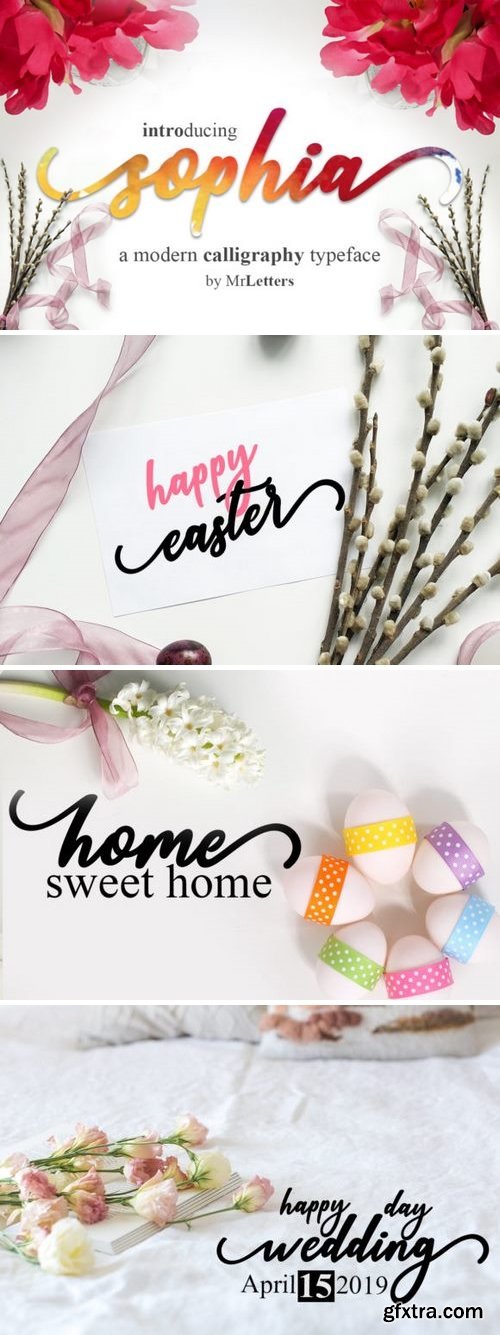
Sophia Font
Sophia is an incredibly charming and beautiful font with a striking personality. Fall in love with its delicate swashes, and create some stunning design projects with this authentic script.